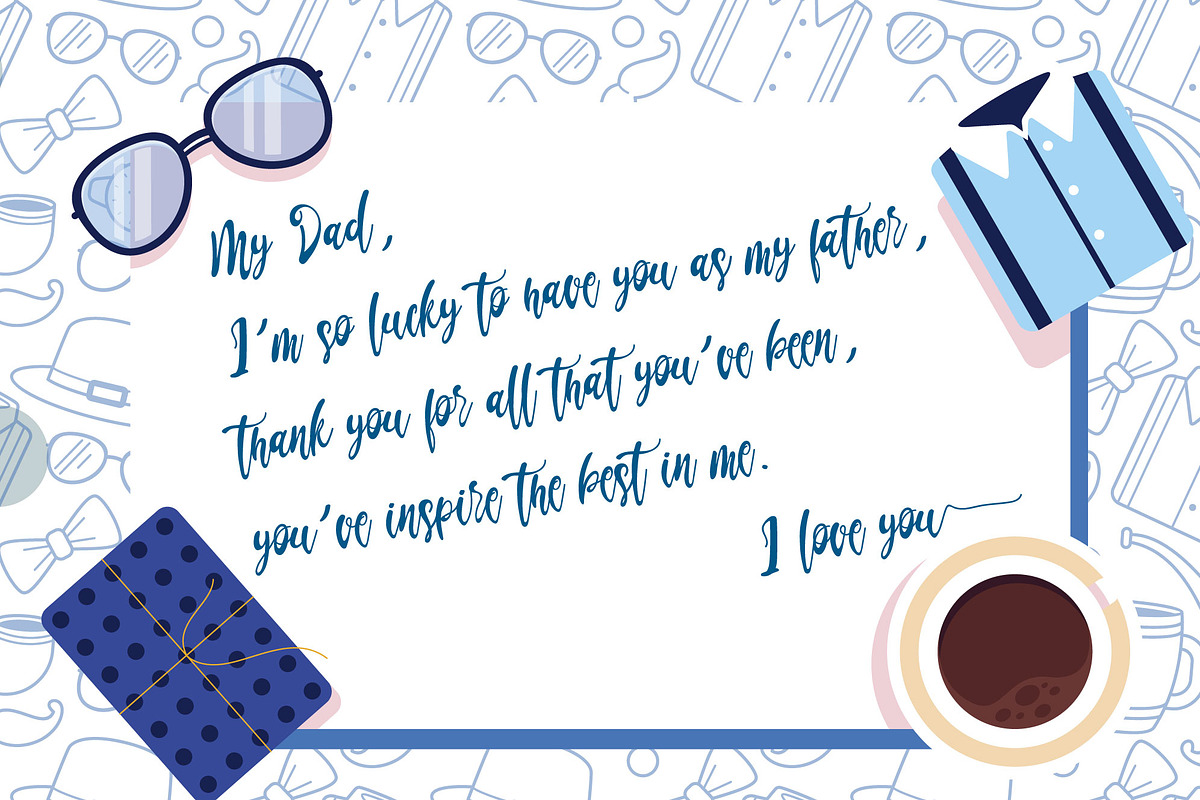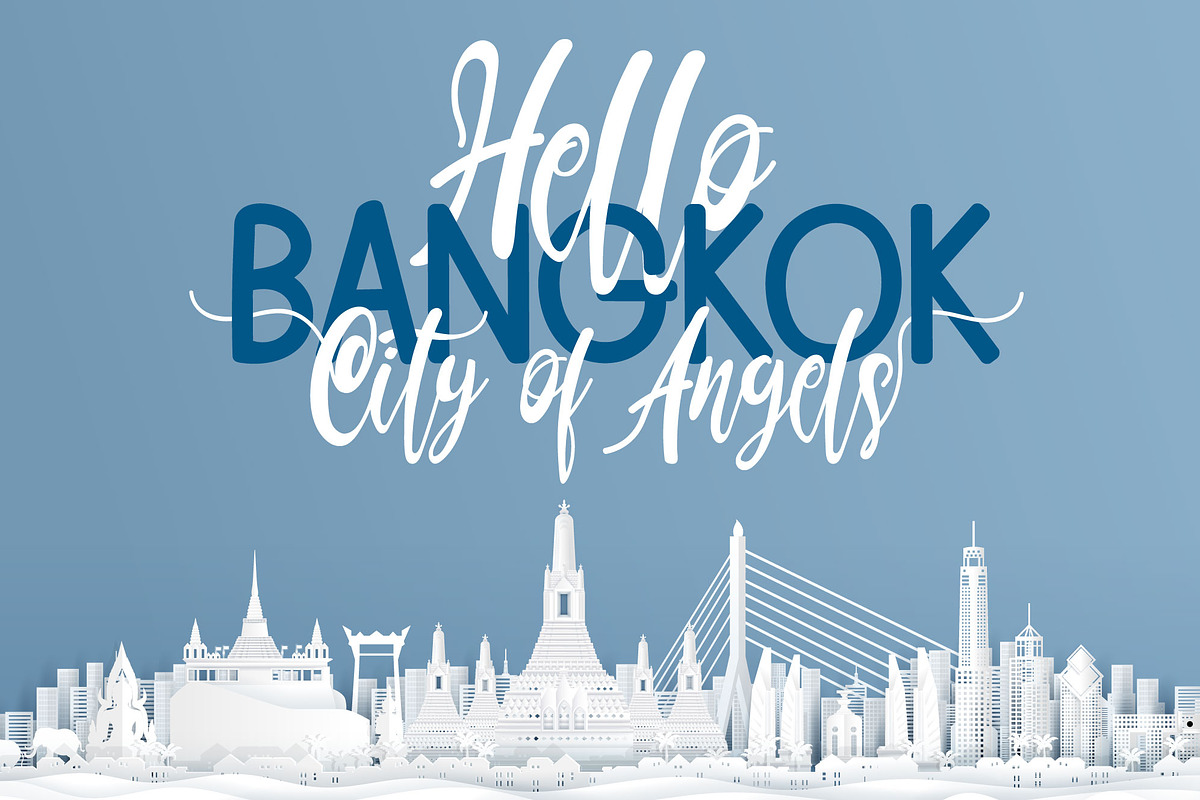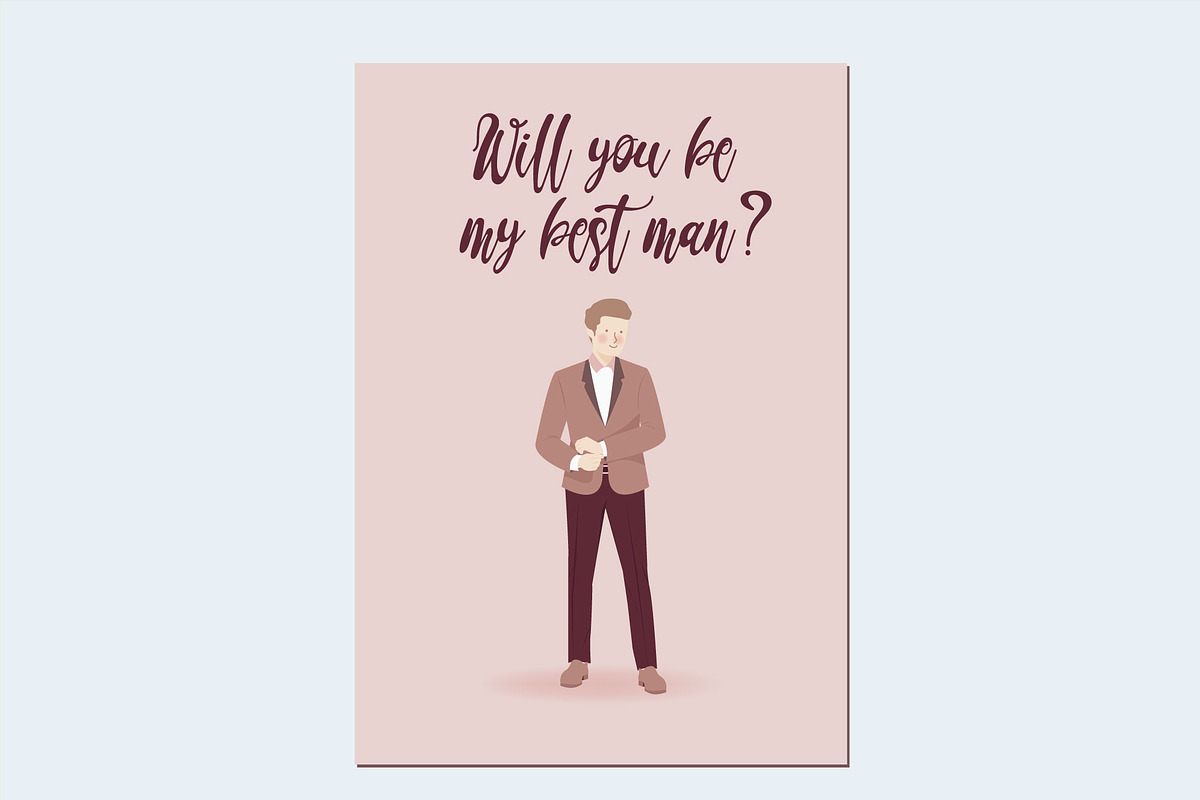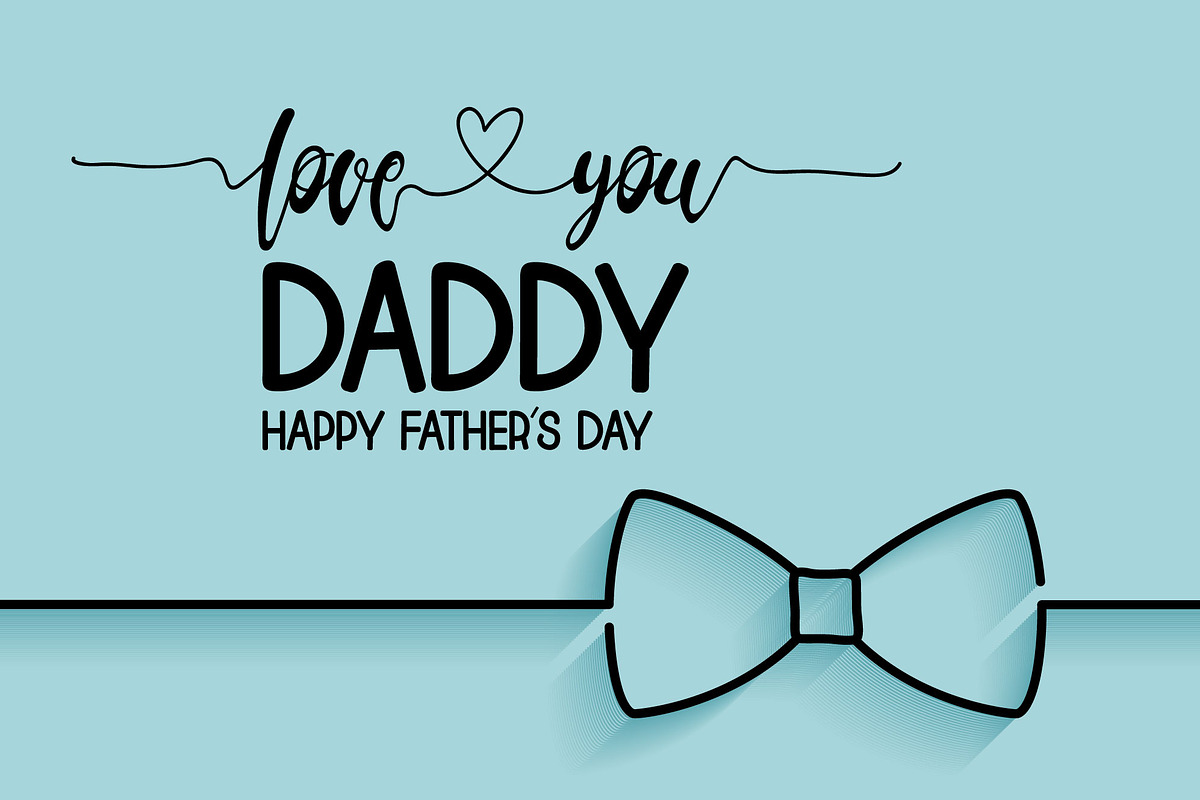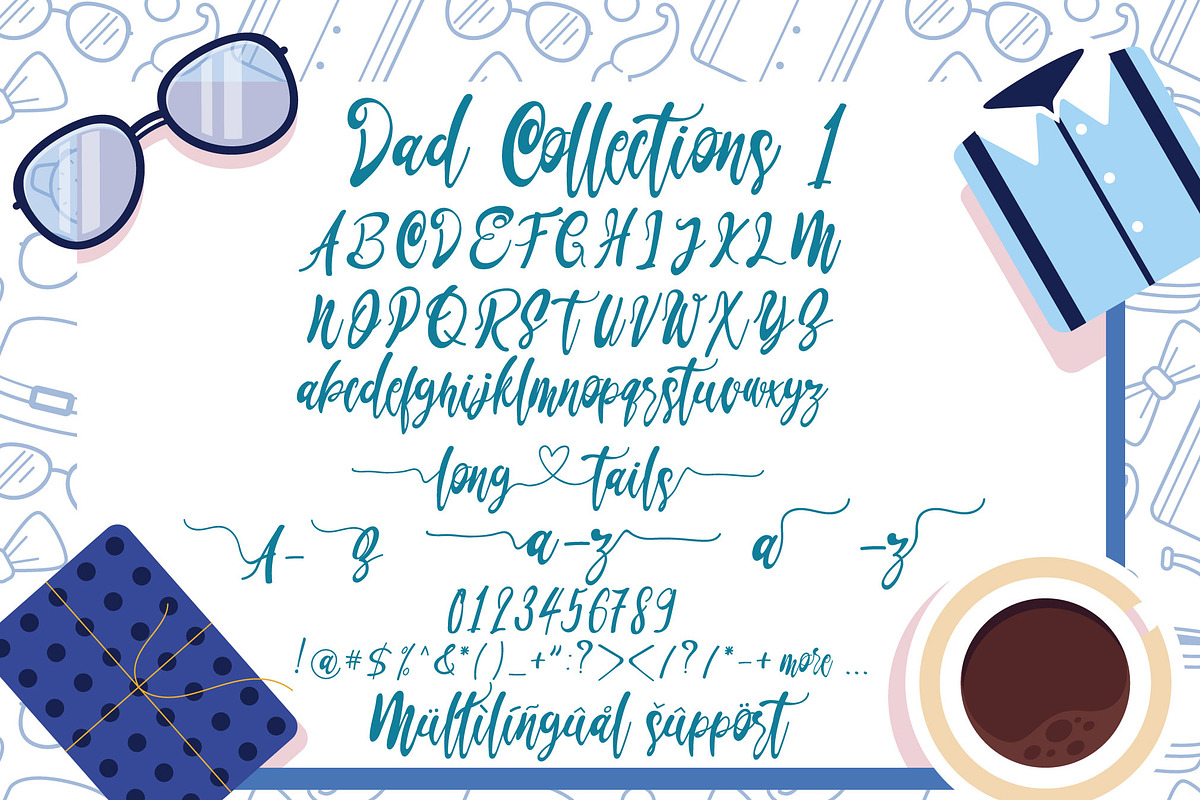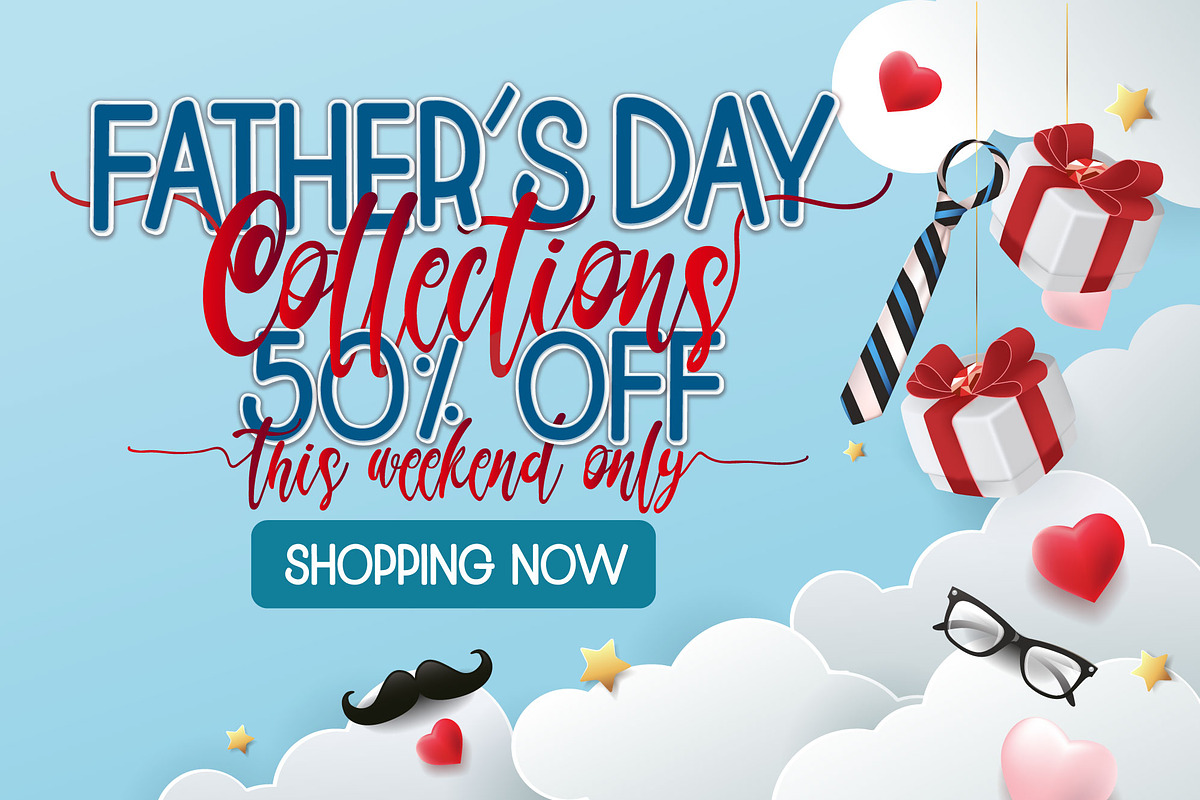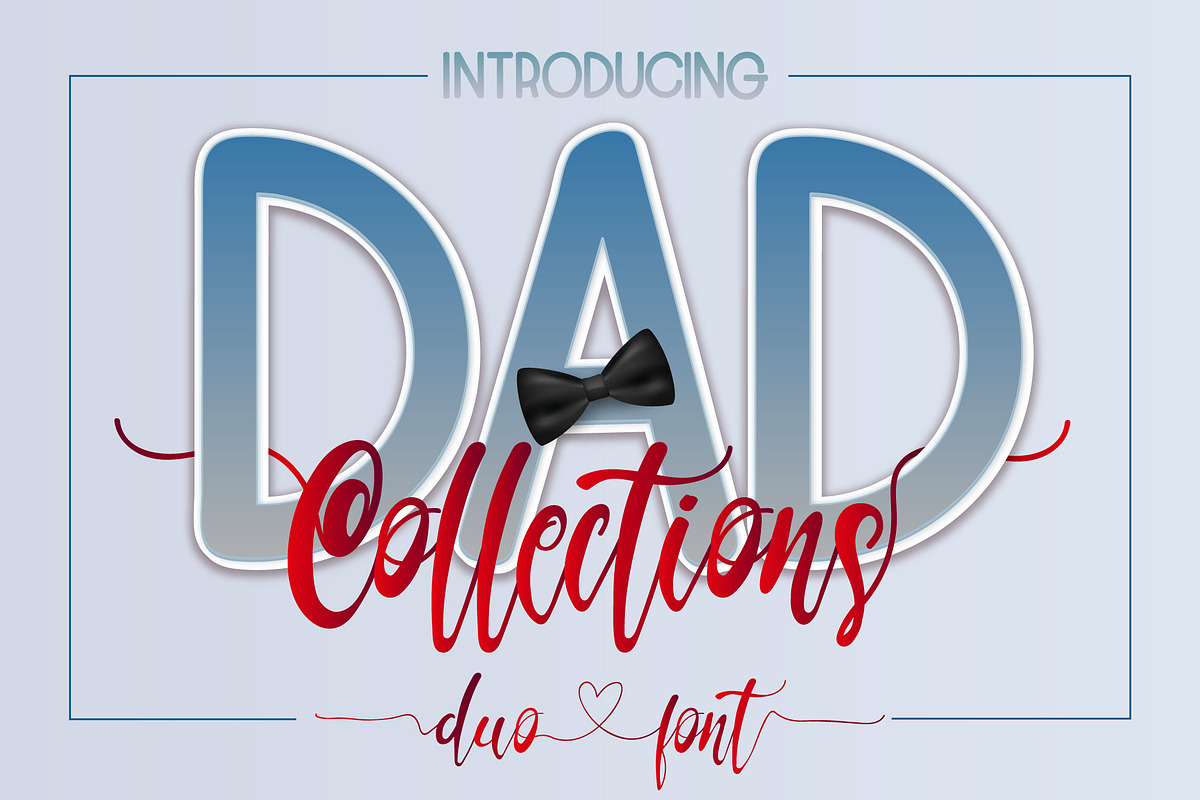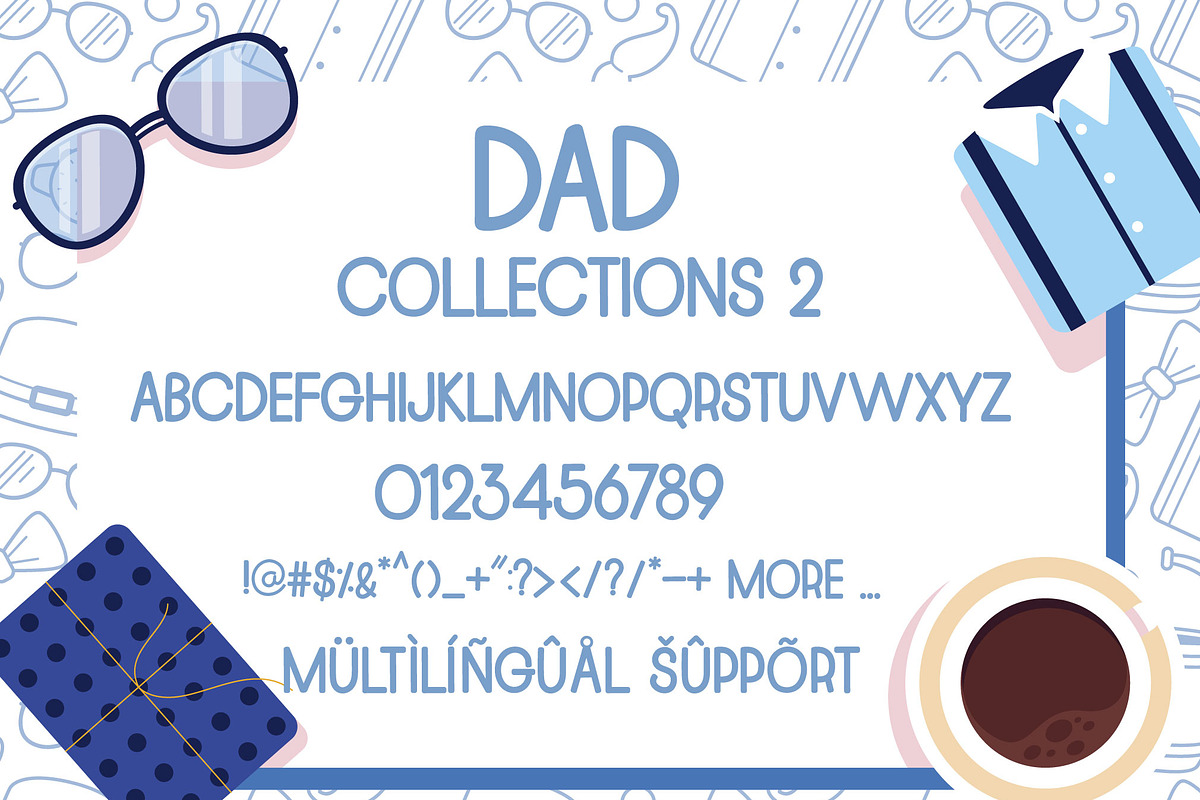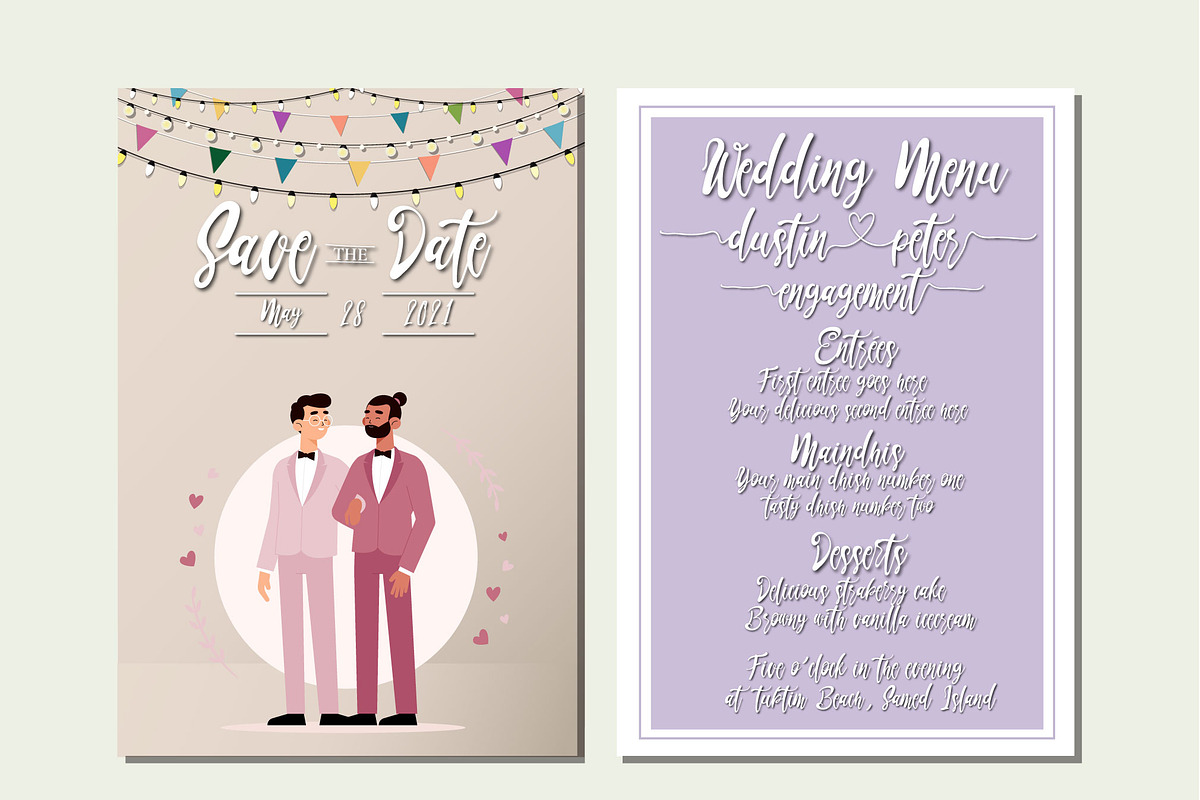
Dad Collections Font
Dad Collections Font is a versatile duo, offering a modern script and a display font. Elevate your design projects with its elegant and sophisticated touch. Whether it's wedding invitations, postcards, or magazines, this font's clean lines, stylish curves, and legible characters make it a must-have in your creative toolbox.